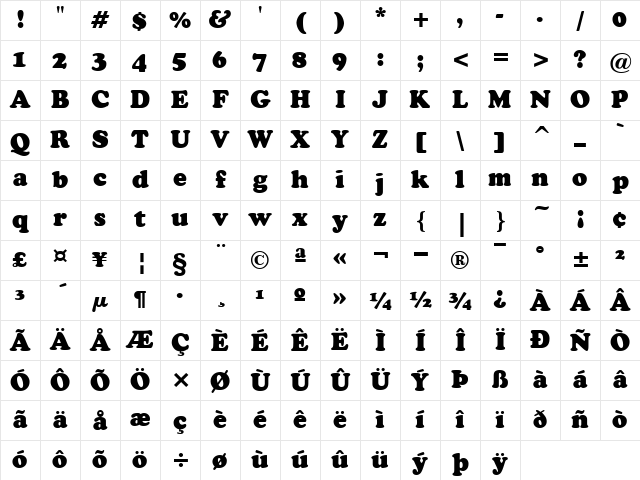
Burlesque2 Regular
Design Context for Burlesque2
Burlesque2 is a composed and adaptable typeface that performs quietly and consistently across a wide range of design contexts.
Pro Tip: Use Burlesque2 in both headline and body roles to test its range before committing to a single application.